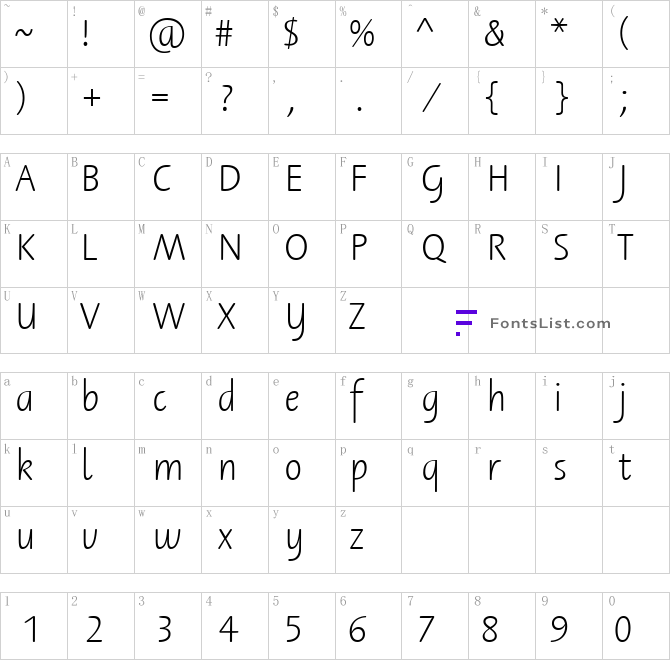
- Font Name:ABC Schrift Eins EF Regular
ABC-Schrift-Eins-EF-Regular.ttf is a very beautiful artistic font, ABC-Schrift-Eins-EF-Regular.ttf is widely used in the design and printing of various books and pictures,ABC-Schrift-Eins-EF-Regular.ttf has a strong visual impact,ABC-Schrift-Eins-EF-Regular.ttf is a commonly used font in newspapers, magazines and books, and is used in posters, e-commerce Poster design, store design, logo design, font design and other fields.ABC-Schrift-Eins-EF-Regular.